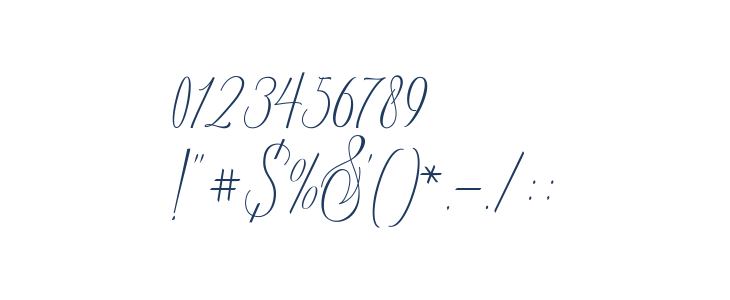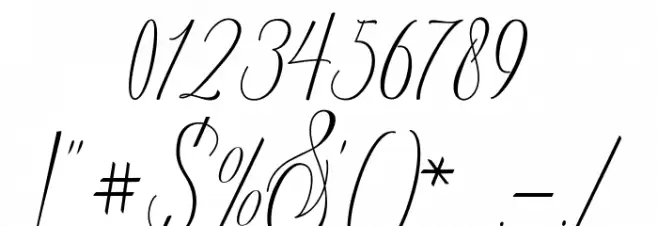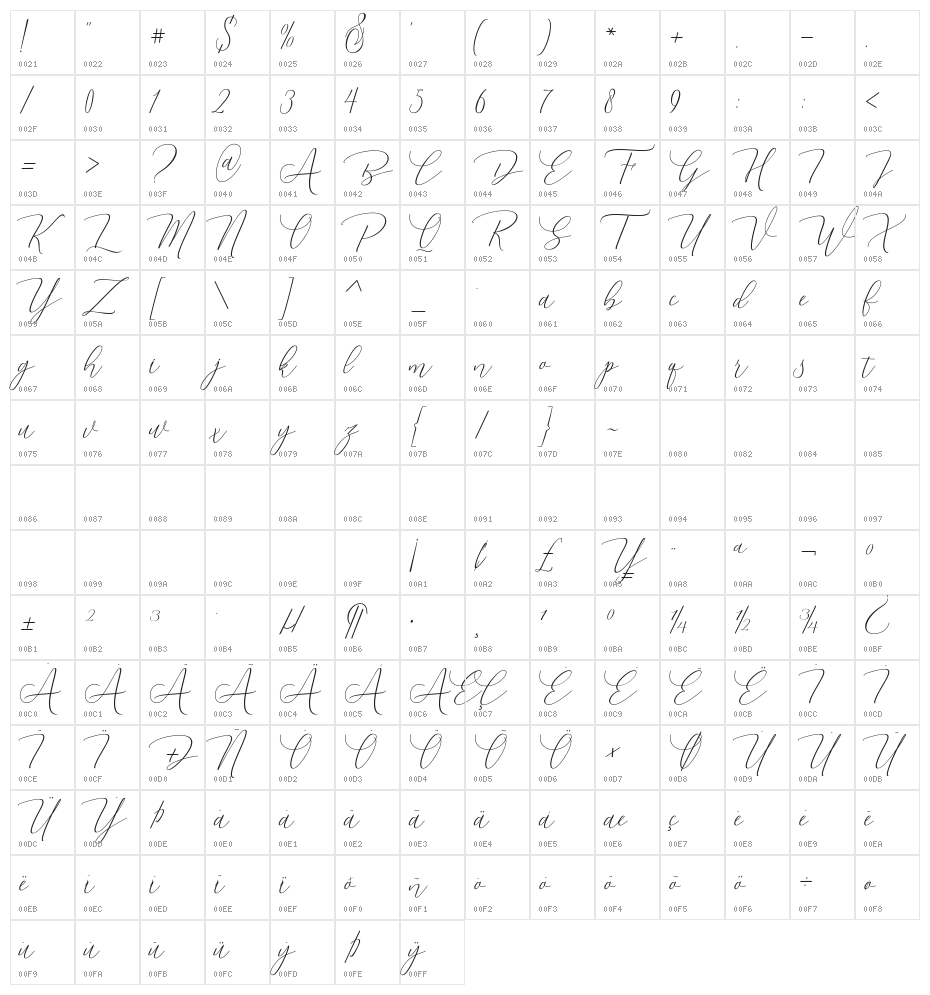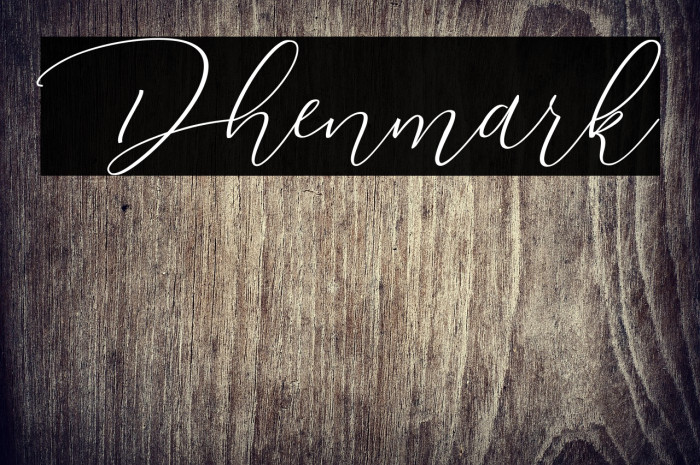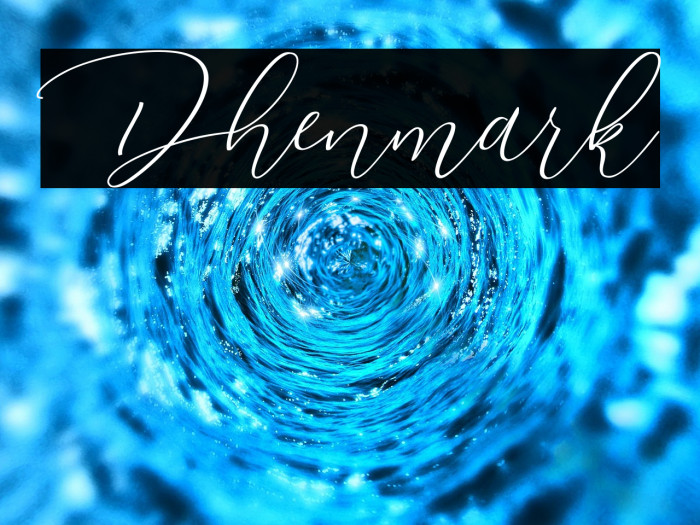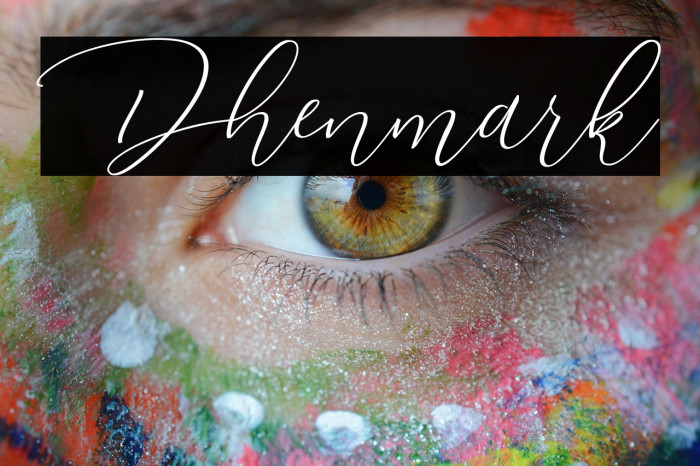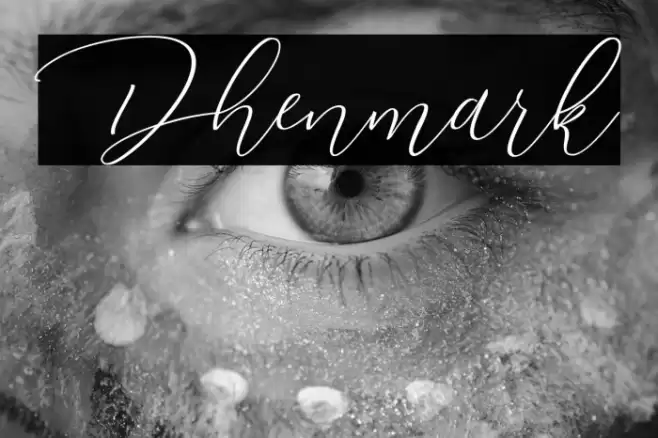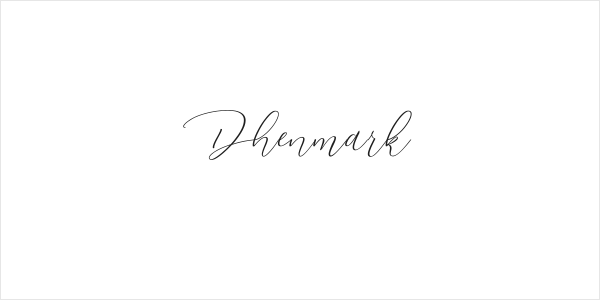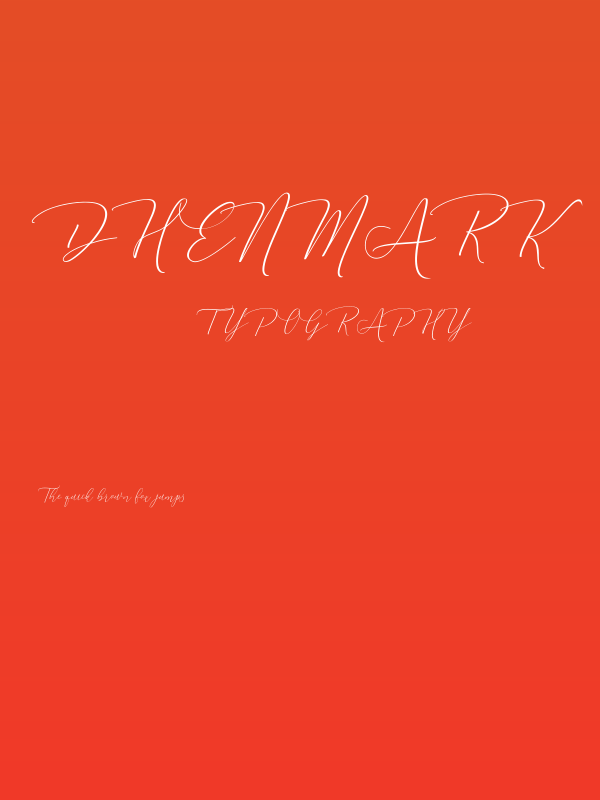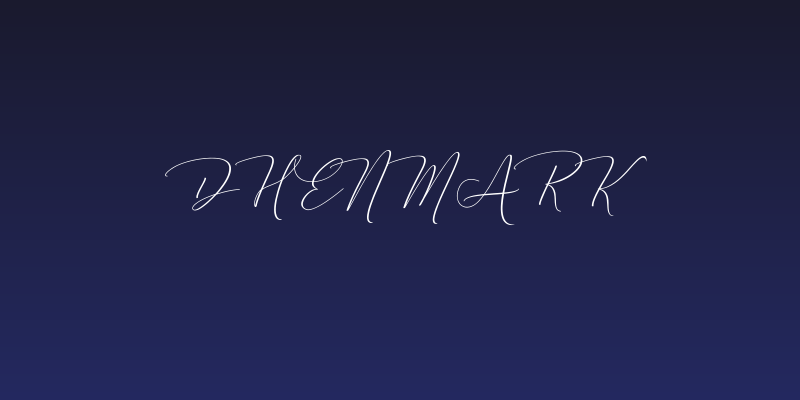
Dhenmark Font
Dhenmark Description
This elegant script font features a flowing, cursive style with graceful, sweeping lines and a sophisticated flair. The uppercase letters are tall and slender, with delicate loops and flourishes that add a touch of refinement. The lowercase letters maintain a consistent, fluid motion, creating a harmonious and connected appearance. The numerals are stylish and complement the overall aesthetic, while the special characters are thoughtfully designed to match the font's elegant theme. This font exudes a sense of luxury and sophistication, making it ideal for projects that require a touch of class and elegance.